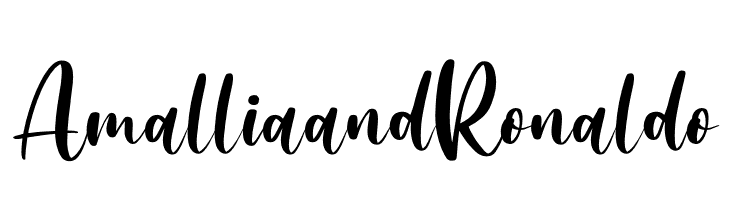
A graceful script font with flowing, connected letters and elegant flourishes.
A playful and elegant handwritten script font with smooth, flowing strokes.
An elegant, cursive font with flowing, handwritten style and ornate flourishes.
A dynamic and flowing script font with elegant cursive letterforms.
A graceful script font with fluid, interconnected strokes and a natural handwriting style.
Casual handwritten font with a playful style.
A modern, cursive script font with interconnected letters and a dynamic style.
A playful, casual handwritten font with smooth, flowing lines and a friendly vibe.